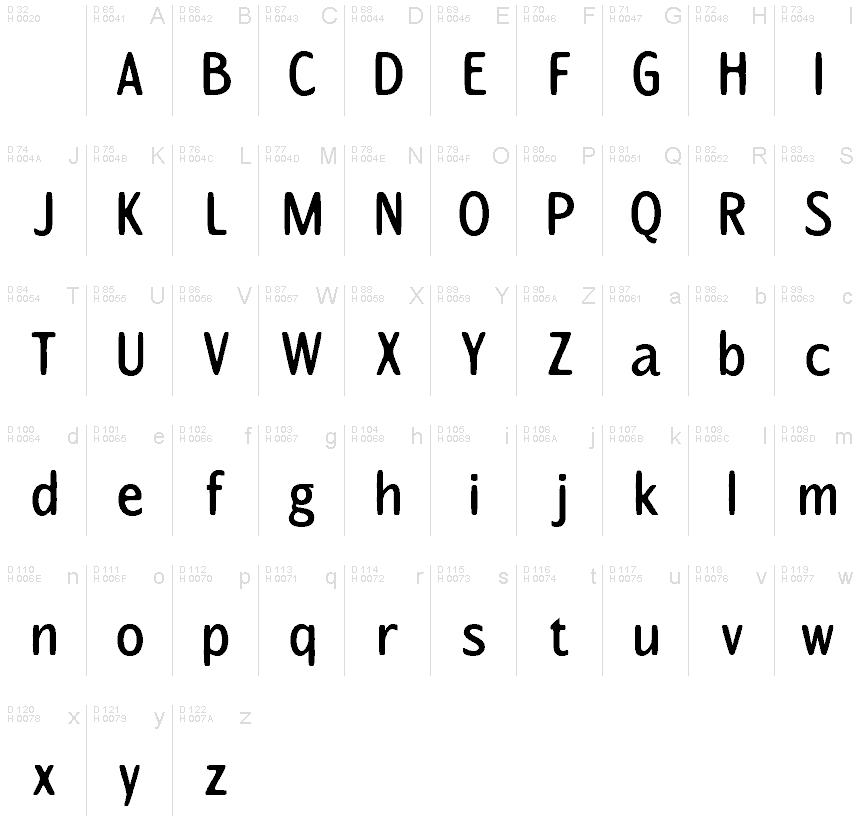
CSAlondraDrawn-Regular Demo
CS Alondra Drawn font by Craft Supply Co. is a free, rounded sans serif typeface with a clean and professional style. Its modern yet elegant shapes are the result of artistic creativity that beautifully connects different letterforms to compose words and complete typographic projects that would instantly stand out in all kinds of settings.
CS Alondra Drawn Demo